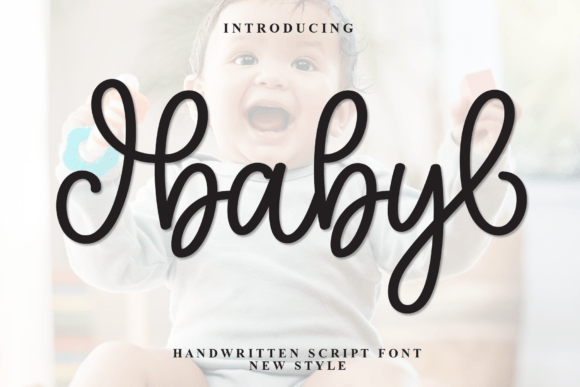
Bringing Joy to Your Designs: The Magic of Baby Font
Have you ever stumbled upon a font that makes you smile? One that instantly transports you back to a moment of pure innocence and wonder? That’s exactly what happens when you discover Baby Font – a playful and charming handwritten script font designed to capture the essence of childhood.
Baby Font is perfect for designers looking to add a touch of whimsy and personality to their projects. Whether you’re working on a baby shower invitation, nursery print, or kids’ branding, this font is sure to bring a sense of joy and approachability to your designs. With its smooth curves, soft strokes, and bold presence, Baby Font is a valuable addition to any designer’s toolkit, offering effortless customization options and high legibility.
Baby Font Key Features
- Character Set: The font includes a comprehensive set of characters, including Latin, Cyrillic, and Greek alphabets, as well as punctuation and symbols.
- Unique Characteristics: The font features a playful, cursive design with rounded edges and a soft, childlike feel, making it perfect for baby-related applications and children’s content.
- Style Options: Baby Font comes in multiple styles, including Regular, Italic, Bold, and Bold Italic, offering users flexibility and versatility in their design choices.
- Scalability: The font is highly scalable, allowing it to be used effectively in a variety of contexts, from small text labels to large headings and titles.
Baby Font Review
I recently had the chance to work with the Baby Font, and I’m sharing my honest thoughts on this unique font.
The Baby Font is designed to resemble handwritten text, making it perfect for adding a personal touch to designs.
- It’s great for creating a warm and inviting atmosphere, especially in children’s products or family-related brands.
- The font’s irregularities and imperfections make it feel more human and less robotic than traditional fonts.
- It’s relatively easy to read, even in smaller sizes, which is a plus for designs where space is limited.
While the Baby Font has its charms, there are some limitations to consider:
- It may not be the best choice for formal or professional designs, where a more polished look is required.
- The font’s imperfections can sometimes make it difficult to read, especially in large blocks of text.
- It may not be suitable for designs that require a high level of precision or accuracy, such as technical or scientific content.
Overall, I think the Baby Font is a great addition to any designer’s toolkit, but it’s essential to use it thoughtfully and in the right context. With its unique charm and versatility, it can add a personal touch to designs that need a bit of warmth and personality.
Tips for Getting the Most Out of Baby Font
Use Baby Font in conjunction with bright and playful colors to create a whimsical and childlike atmosphere. Experiment with different font sizes and styles to add visual interest to your design. Consider pairing Baby Font with other fonts to create a unique and eye-catching look.
Baby Font is ideal for use in children’s party invitations, nursery decor, and baby shower invitations. It’s also great for creating fun and playful social media posts and advertisements for children’s products or services.